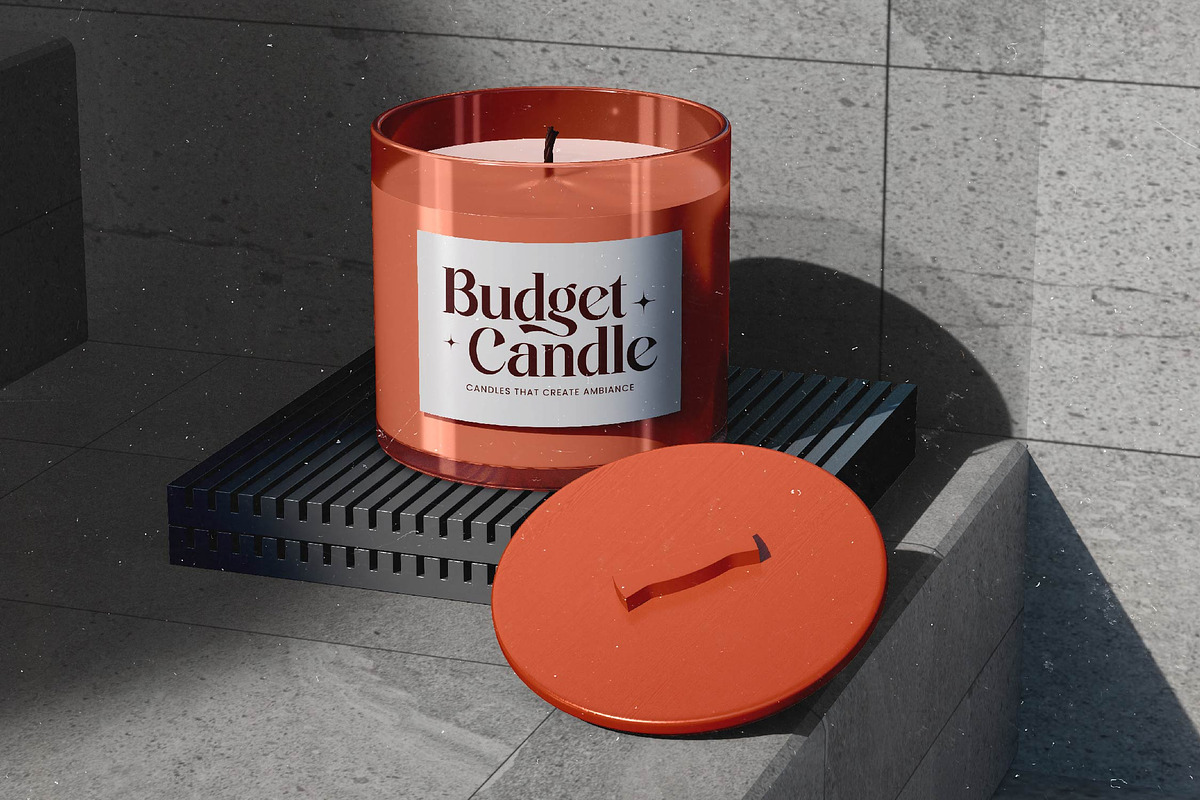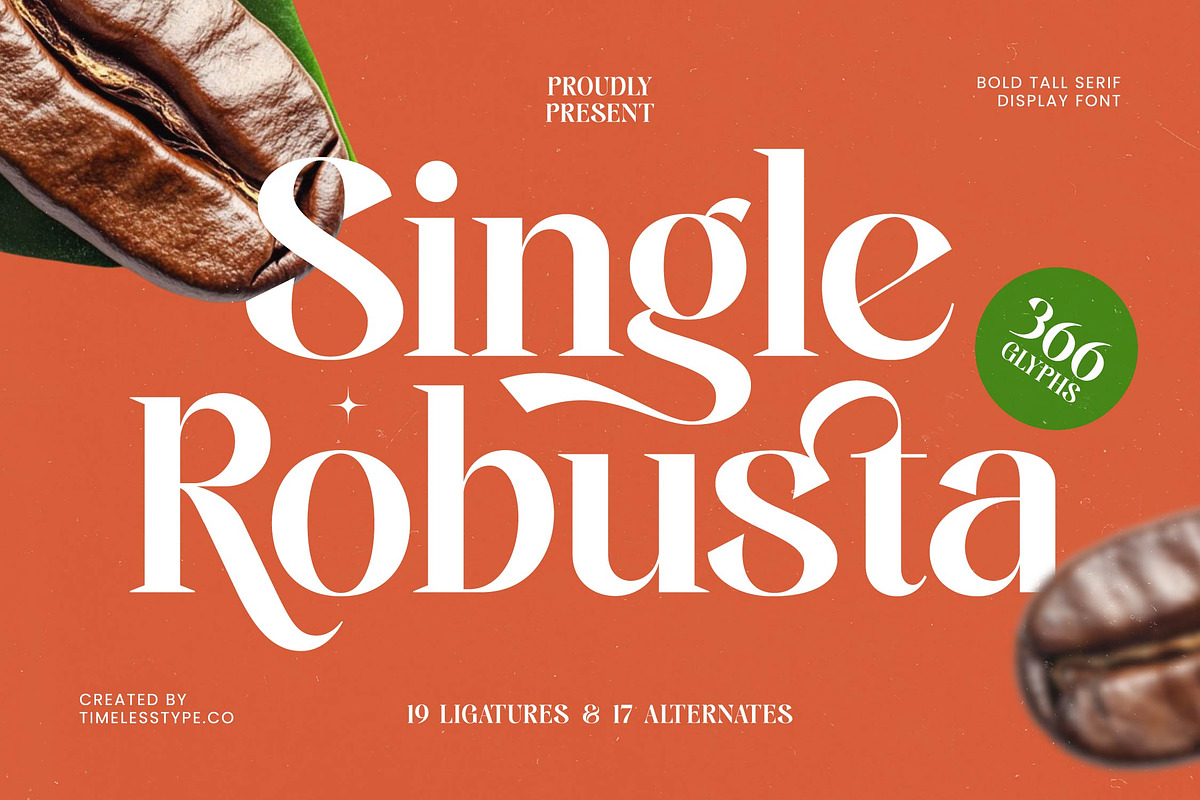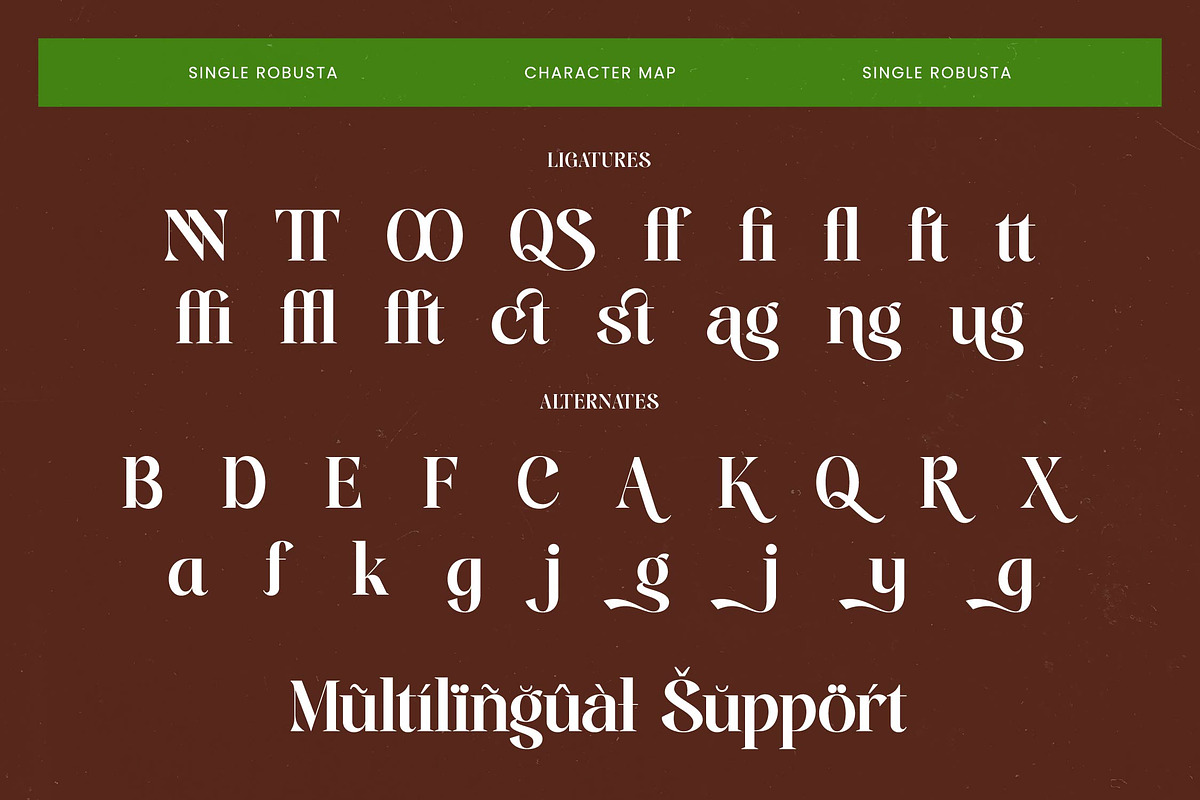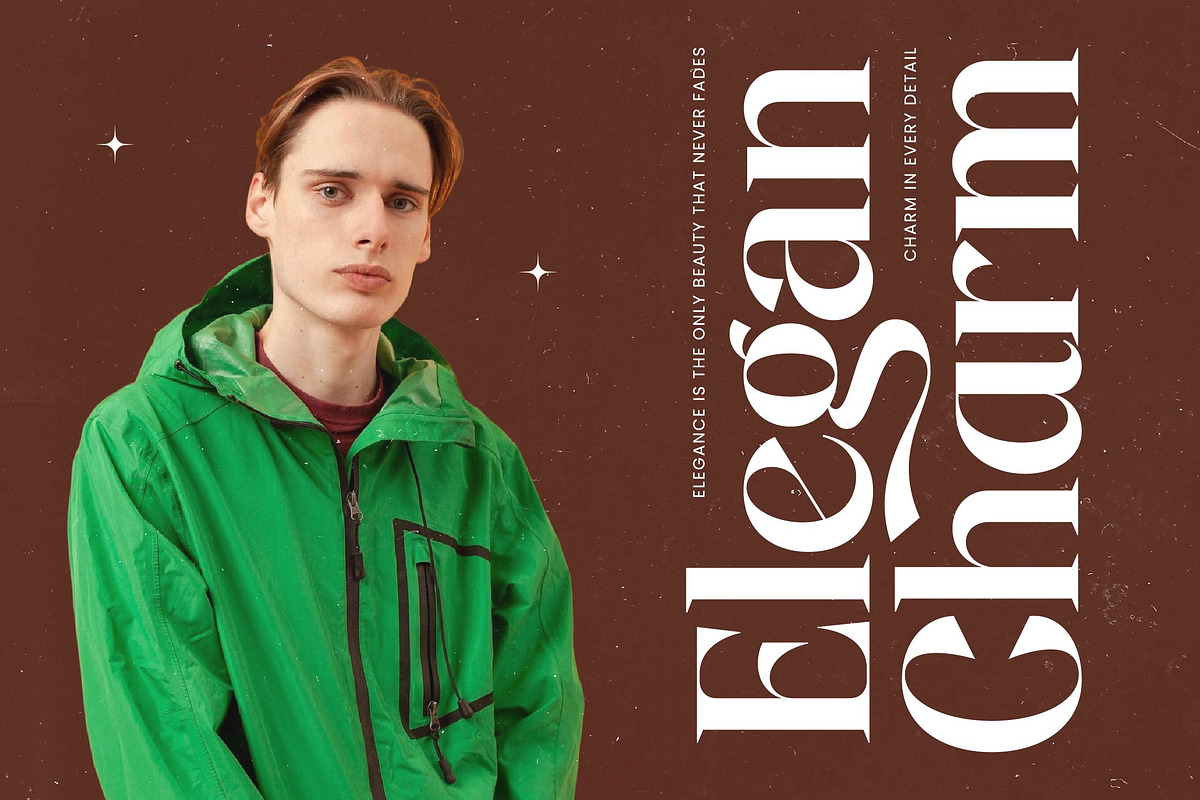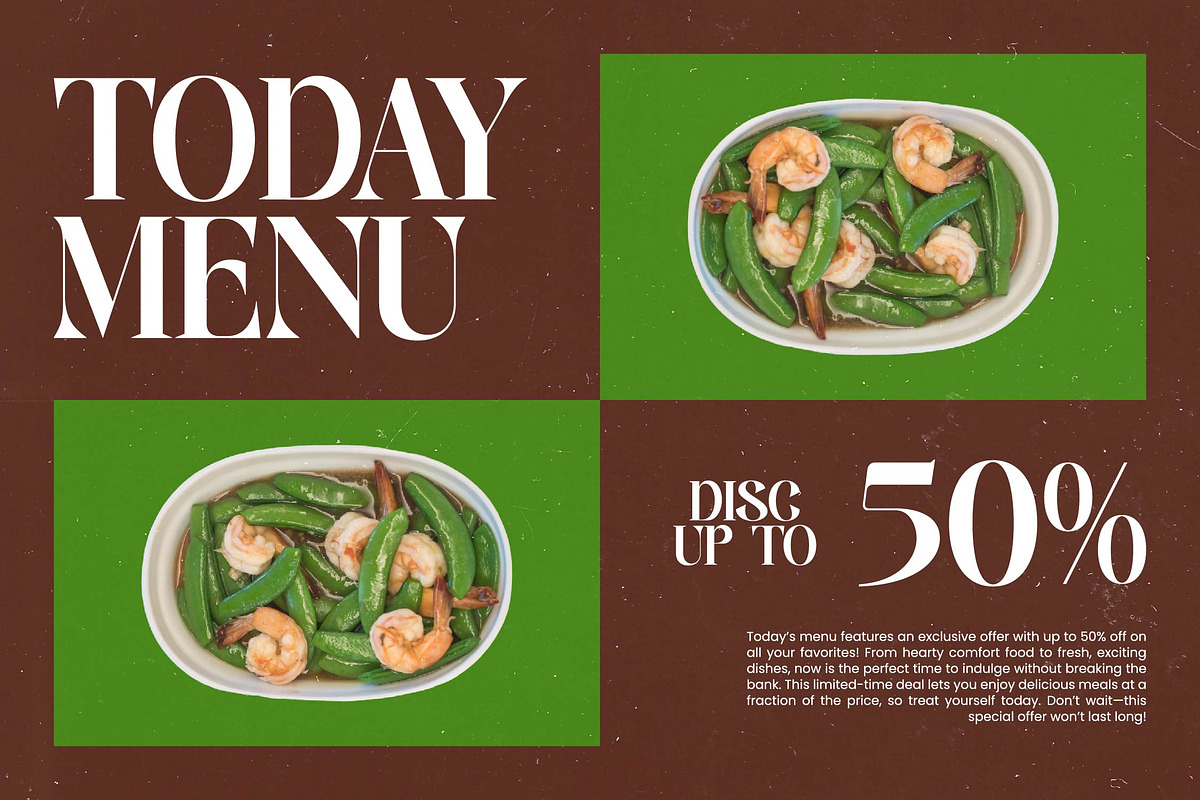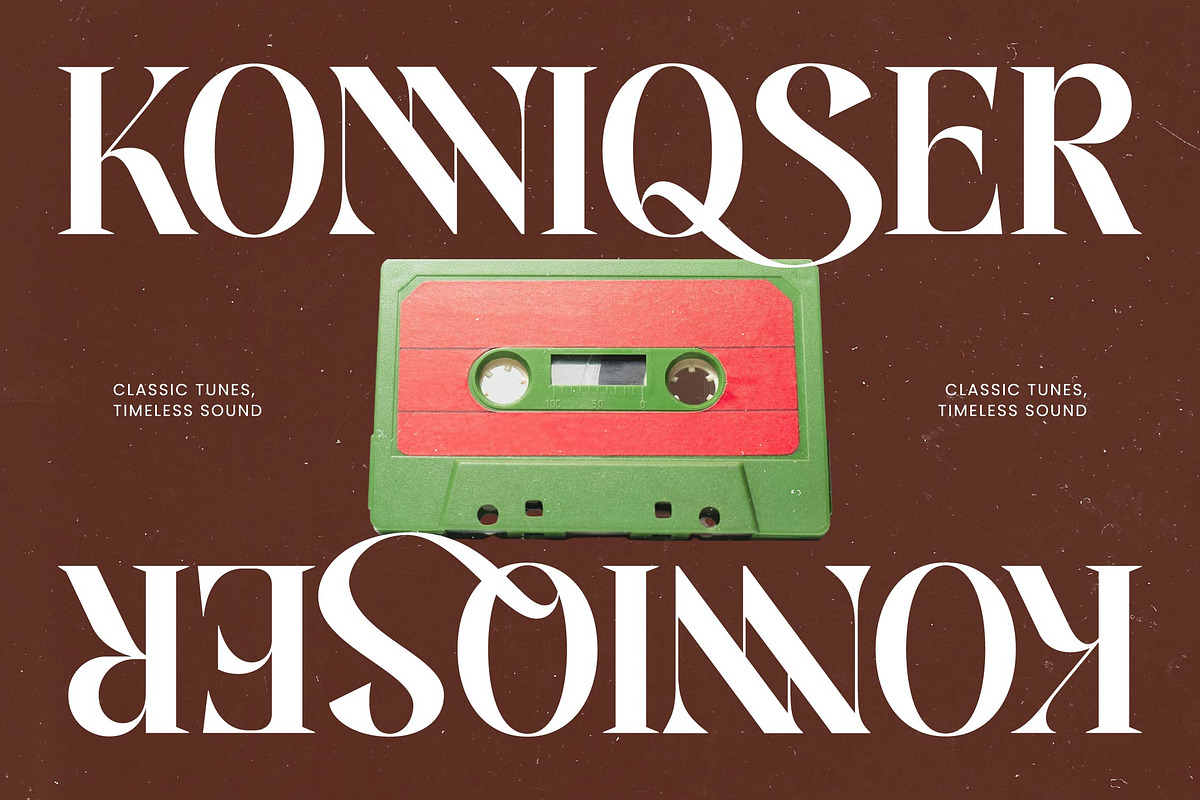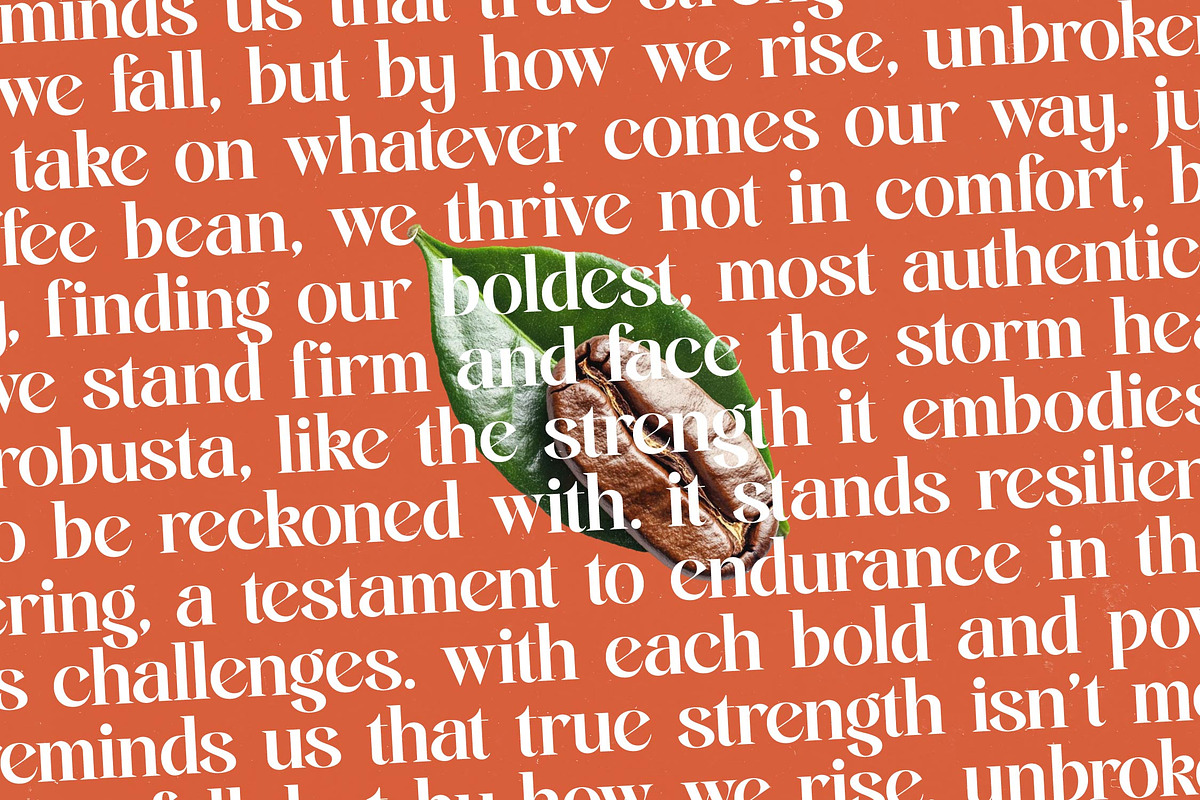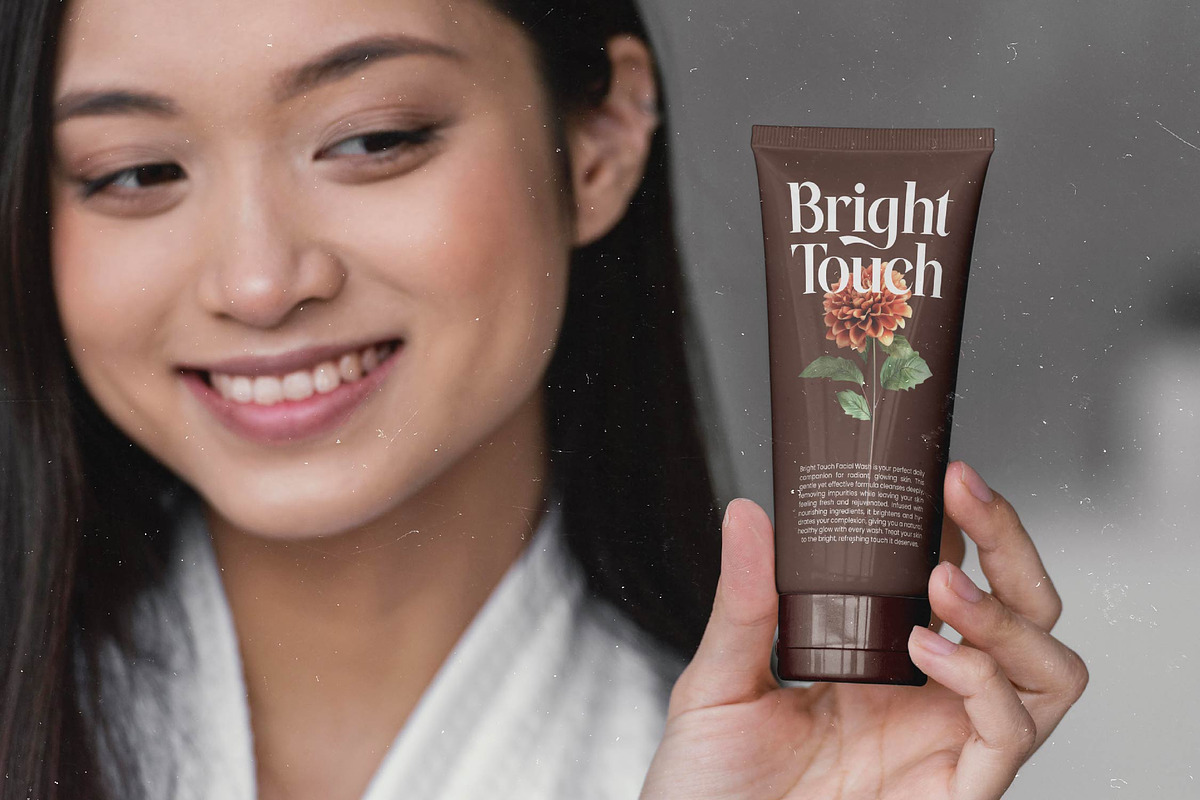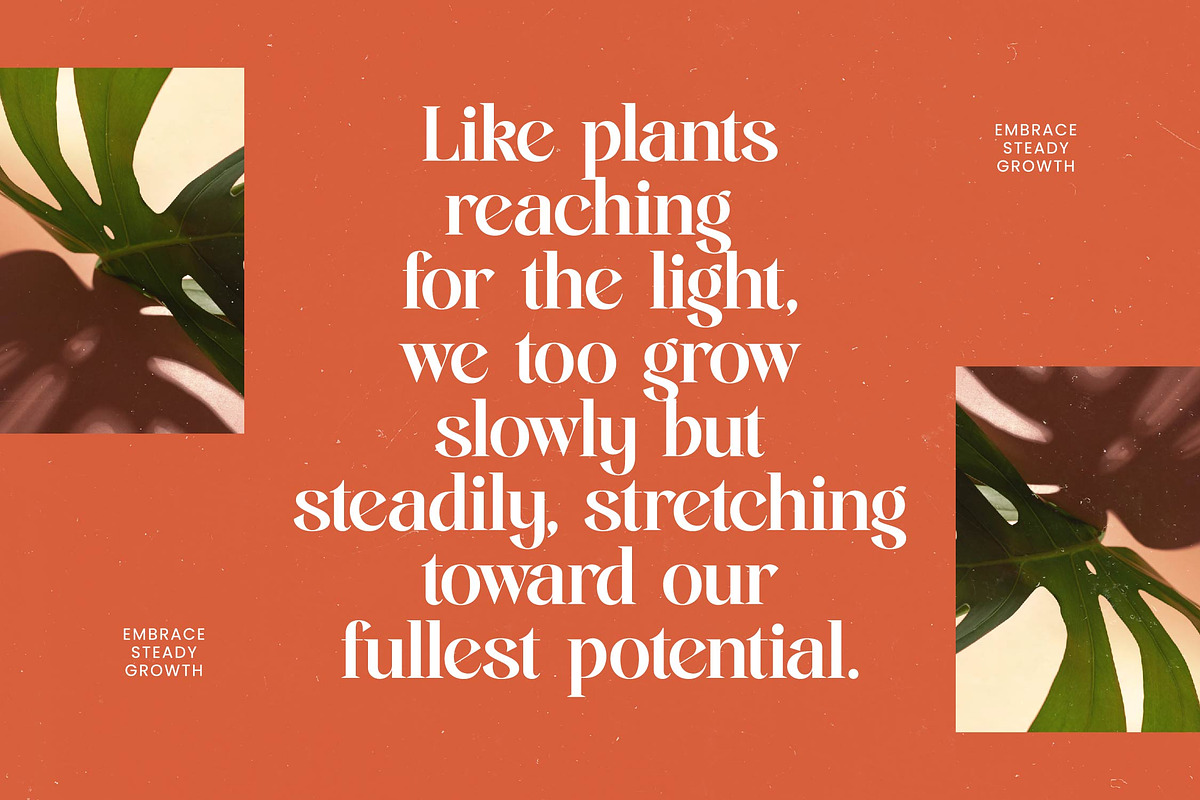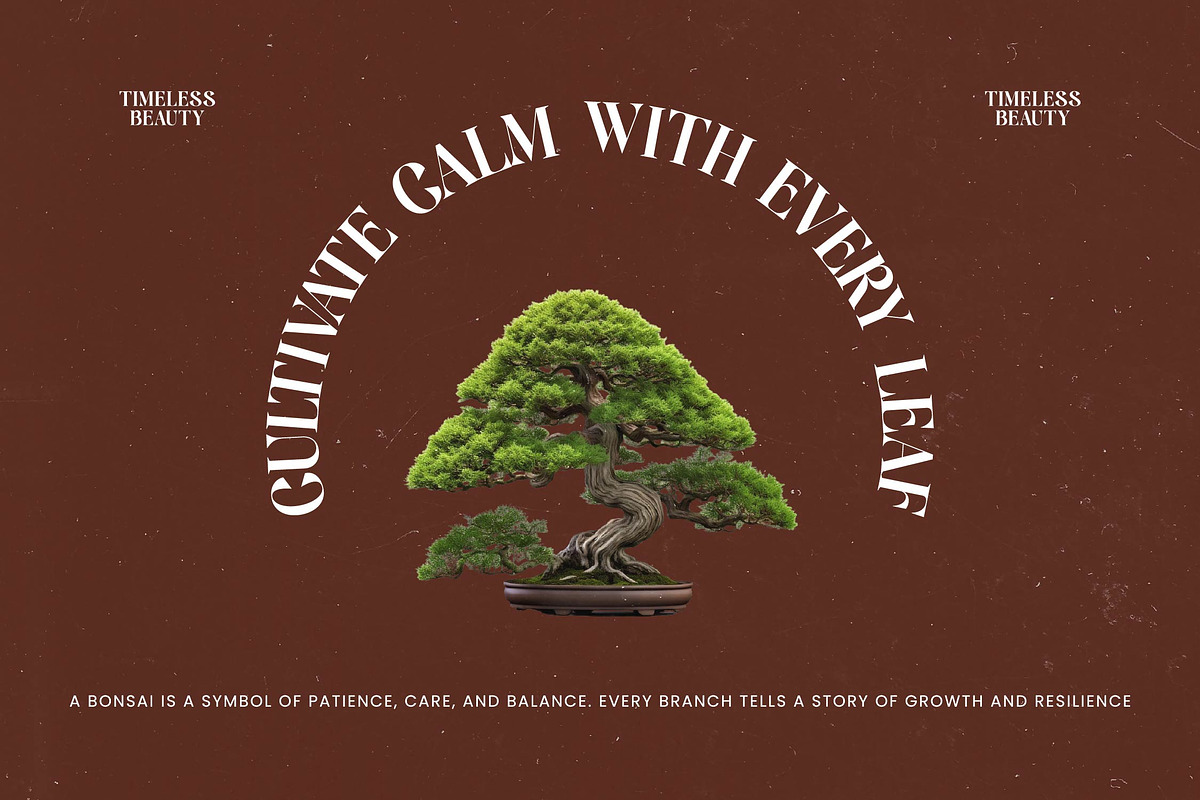
Single Robusta Modern Display Serif
Indulge in the rich, full-bodied elegance of Single Robusta, a font designed to leave a lasting impression on every viewer. This typeface blends classic sophistication with a sharp contemporary edge, making it the premier choice for creative projects that demand a bold yet refined presence.
Inspired by the robust essence of premium coffee culture and the timeless charm of vintage European signage, this font captures a unique sense of warmth and artisanal craftsmanship. The tall, slender forms mirror the verticality of high-end editorial layouts, while the smooth curves evoke the organic fluidity of a perfectly brewed experience.
Exuding a sense of confidence and luxury, this modern serif display is meticulously crafted for maximum branding impact across all media. Its high-contrast serif details and unique character shapes provide a luxury typography feel that is both authoritative and inviting, functioning as a standout editorial font for any high-end project.
Perfectly aligned with the current modern serif trend, this typeface meets the professional demand for character-driven typography that breaks away from the mundane. As editorial display fonts continue to dominate the global design landscape, this font offers the versatility needed to create visually striking compositions that feel both nostalgic and forward-thinking.
This versatile typeface is an ideal choice for high-end logo design and comprehensive branding identity systems that require a distinct voice. Its sophisticated nature makes it a stunning fit for editorial magazine spreads, premium packaging for the food and beverage industry, elegant wedding invitations, and cutting-edge fashion lookbooks.
The font package comes fully loaded with a wide array of ligatures and alternates that allow for deep customization and unique typographic flair in every word. Additionally, it features full multilingual support and a comprehensive set of international characters, ensuring your message reaches a global audience with effortless style.
- Ligature 19 Alternate 17